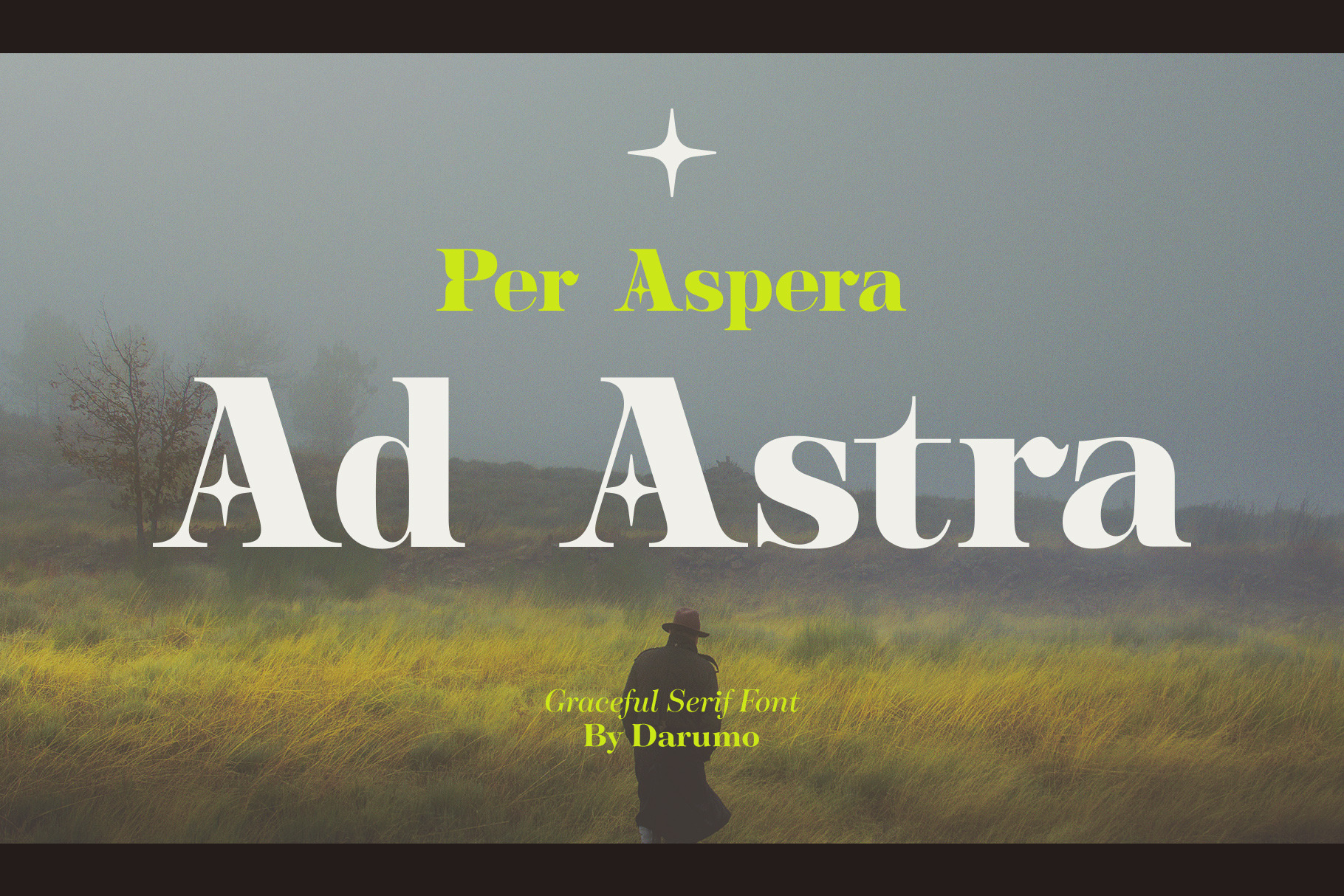
Ad Astra - Graceful Serif Font
Enjoy this sophisticated serif font. Modern trends finally meet timeless classics here. This typeface, wherever it's used, will give a sense of refinement in detail, and at the same time, a touch of relaxed elegance. If you are looking for a trendy font that could give you these feelings of modern grace and classic elegance, you've already found it.
This font is quite versatile and can be used in both classic and modern designs. Whether it's a sensuous Jane Austen-inspired love letter or a trendy acid-jazz concert poster, this font will give your design a finished look and a touch of sophistication.